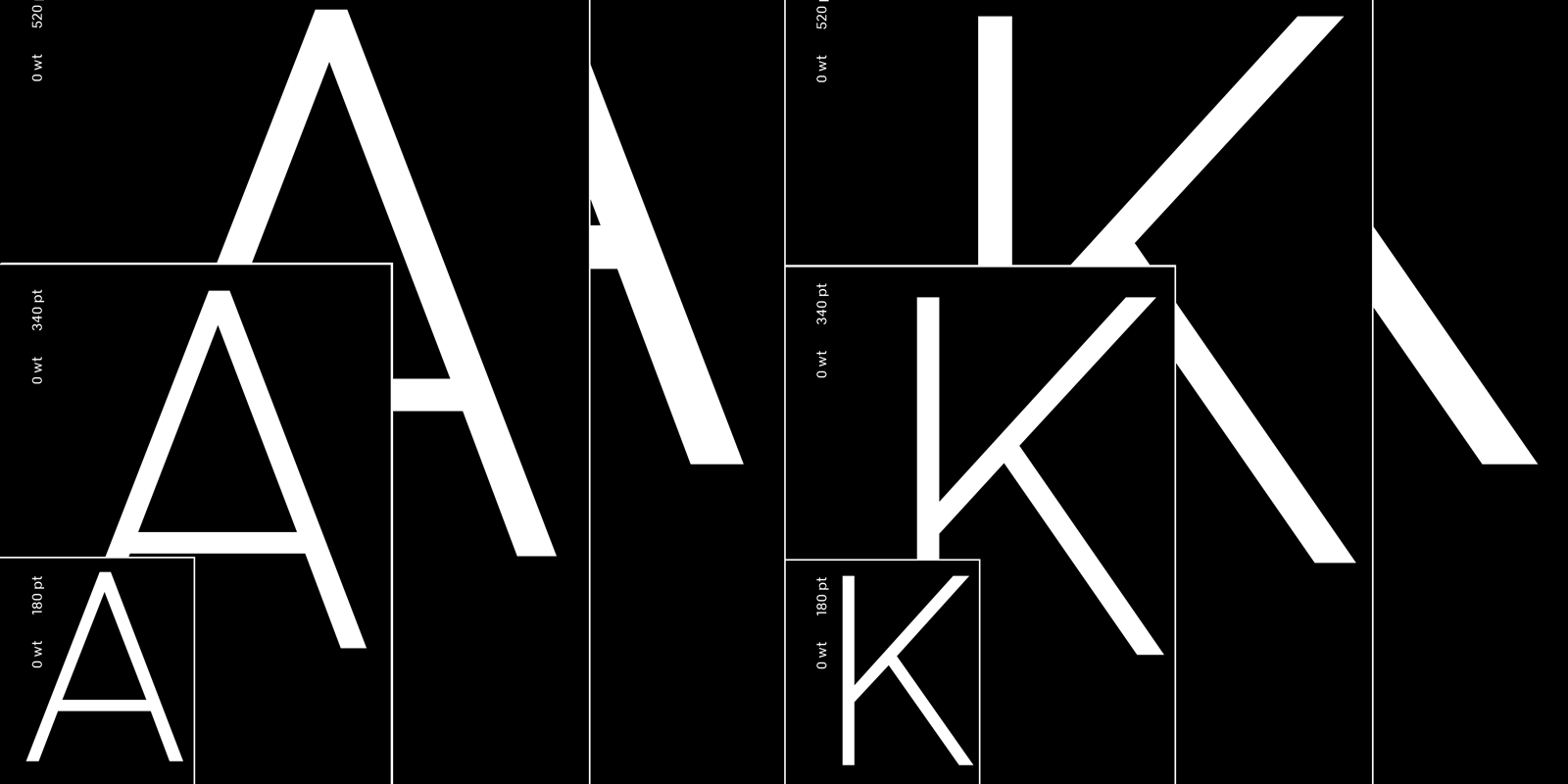
The Abitare Sans Font is incredibly versatile, making it an excellent choice for a wide array of design projects that demand a blend of modern sophistication, clean readability, and approachable elegance. Imagine it bringing a crisp, professional edge to contemporary corporate branding and logos, ensuring clarity in user interfaces and digital applications, or providing a sophisticated, understated feel to editorial layouts for design and lifestyle publications. It's also fantastic for creating intuitive web content, crafting presentations that prioritize information delivery, and designing impactful signage that stands out with its clarity. Its inherent straightforwardness and balanced proportions make it perfect for any project striving to communicate innovation, precision, and an uncluttered visual message.
What makes Abitare Sans Font so exciting is its unique ability to combine a geometric structure with subtle humanist touches, resulting in a highly versatile and friendly sans-serif. It often features open counter-forms, a generous x-height, and consistent stroke widths that ensure individual characters are distinct and easy to decipher across various media. This font doesn't just display text; it communicates with purpose and grace, making your message feel authoritative, trustworthy, and effortlessly chic. Its balance of robust presence and remarkable clarity ensures that your designs are not only visually effective but also easily understood. It's a typeface that brings an atmosphere of contemporary elegance and functional beauty to your typography, guaranteeing your projects leave a polished and memorable impression.
The Abitare Sans Font family typically includes a comprehensive range of weights and stylistic alternatives to provide extensive creative flexibility. While specific options can differ, you can generally expect to find alternatives like Thin, Light, Regular, Medium, Bold, and Black, often accompanied by corresponding italics, allowing for diverse visual impact and hierarchy. These different weights and stylistic sets allow you to create dynamic visual structures and add nuanced emphasis to your typography, ensuring a cohesive and thoughtfully designed outcome. This comprehensive family support ensures that whether you need a strong, commanding headline or a subtle, refined body text, Abitare Sans Font Free Download offers the perfect elements to bring your modern vision to life.